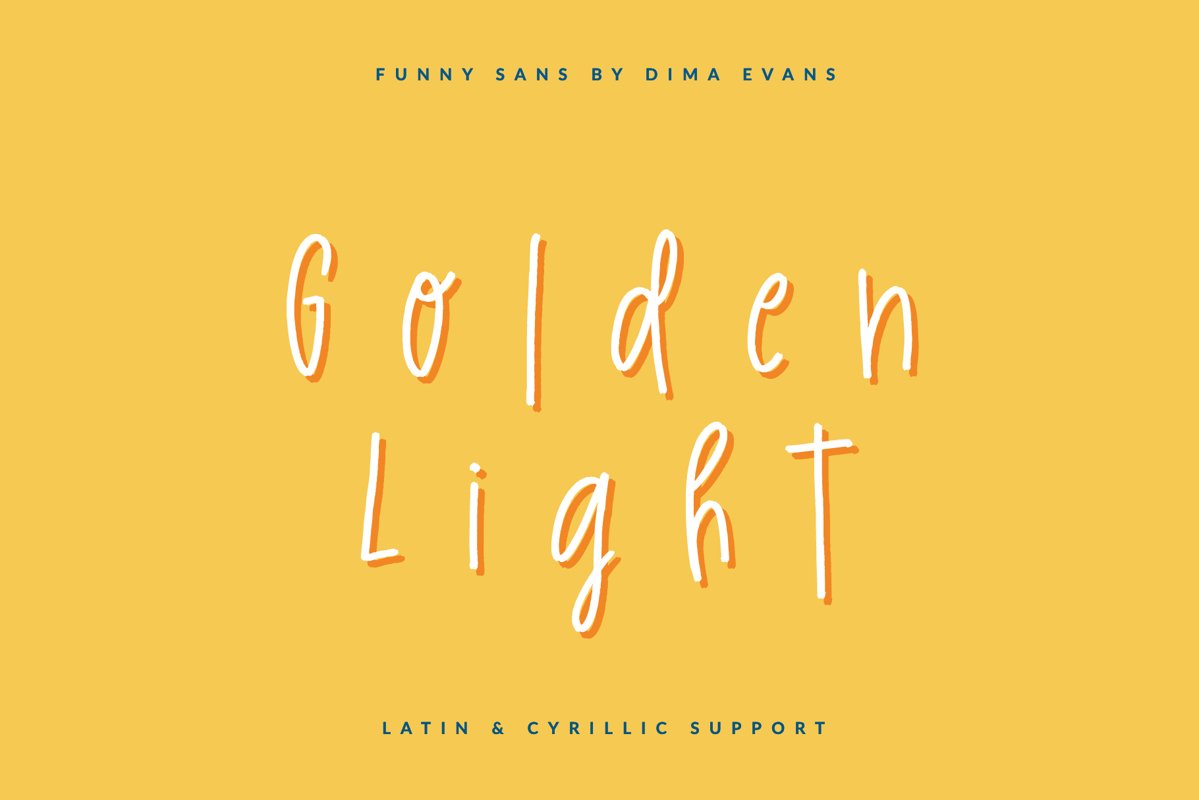
Golden Light handwritten Cyrillic Script
GoldenLight
Golden Light is a cute handwritten font with Cyrillic support. It is perfect for branding, wedding invitations, menu design, YouTube covers and many more
Golden Light - это симпатичный рукописный шрифт с поддержкой кириллицы. Он идеально подходит для брендинга, свадебных приглашений, дизайна меню, обложек YouTube и многого другого
• Support ALL European Languages